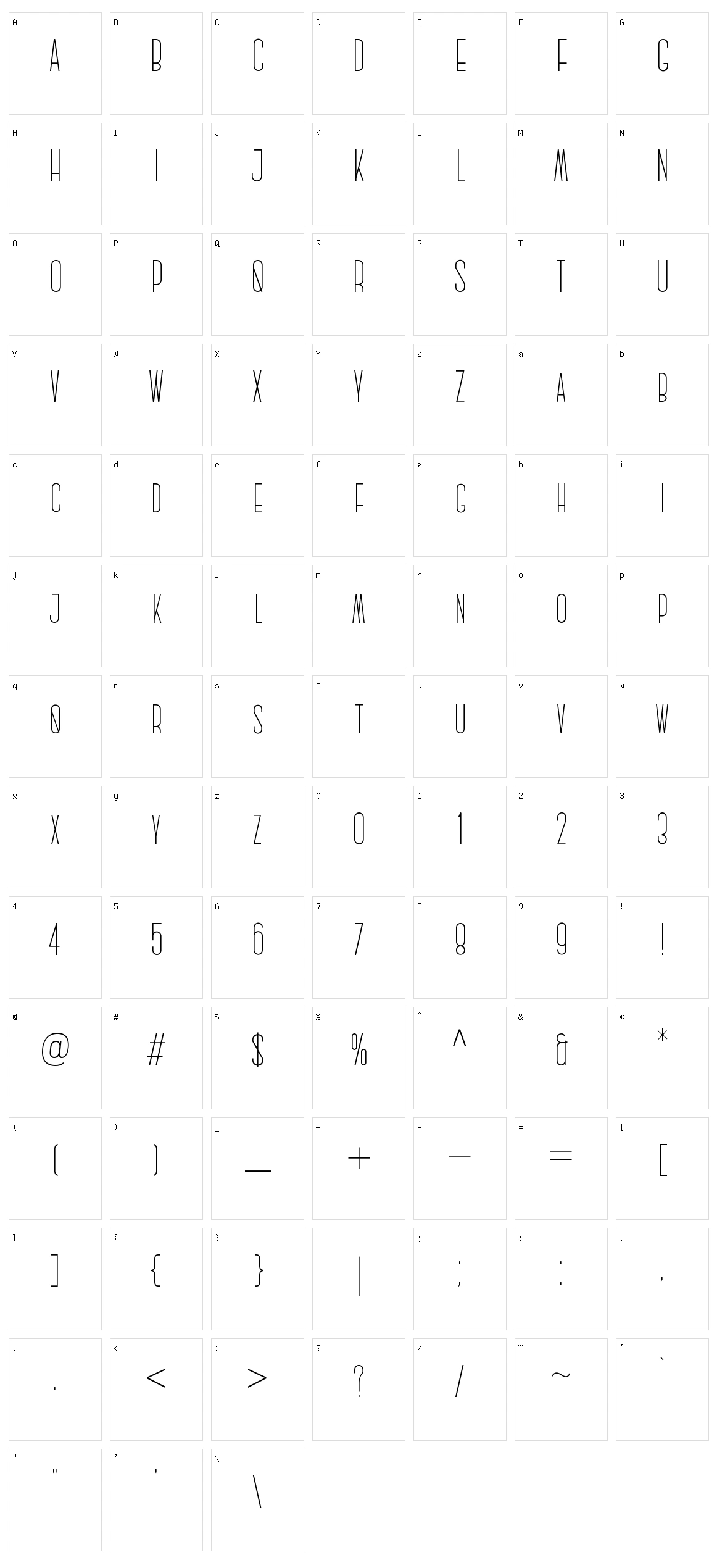
The free font Majanan is carefully designed by Afkari Studio, showcasing a thoughtful balance of creativity and usability and falls under the Sans serif font style. When you download the ZIP file, it contains only 852.92 KB of font files, making it lightweight and quick to download. Please review the license details below to understand permitted usage and distribution rights. If license information is not available, we recommend using this font for personal projects only or contacting the author directly for commercial usage permissions.
Majanan is a Sans Serif Condensed font features Uppercase and Lowercase, Numerals and Punctuations and Multilingual characters. This font is suitable for posters, branding, headers, quotes, etc.